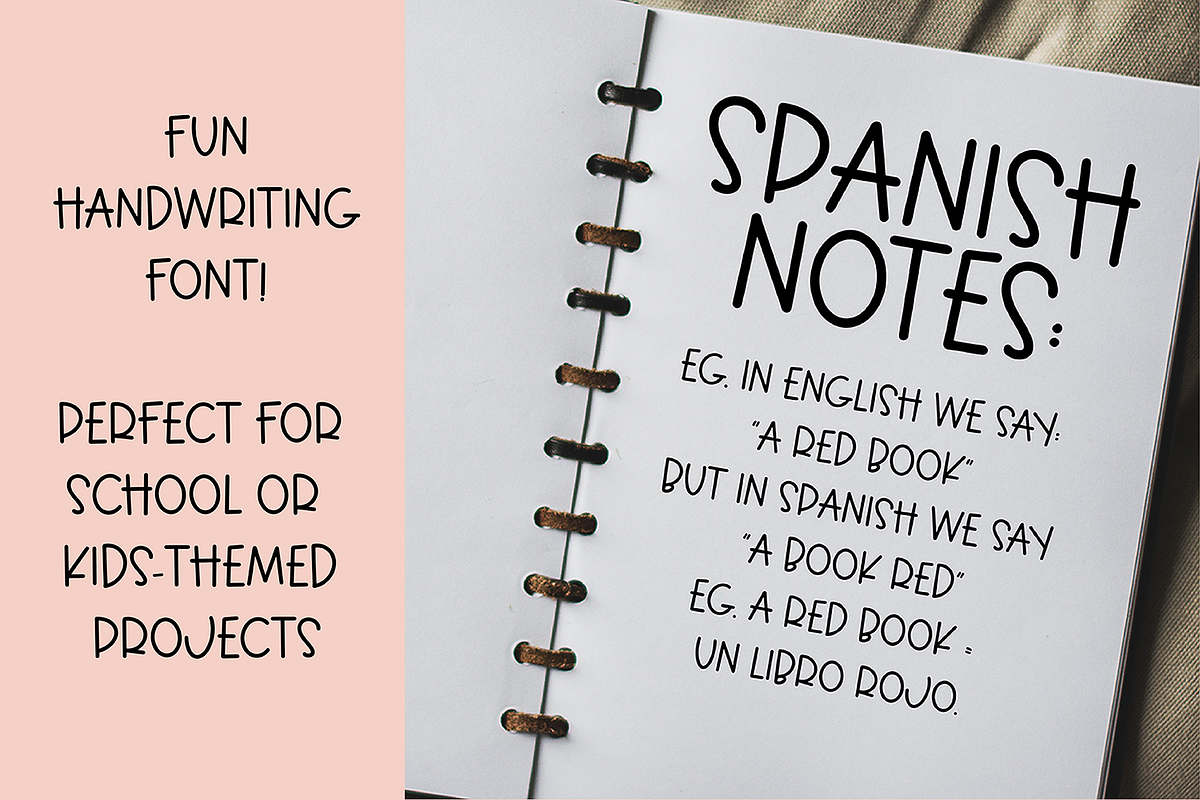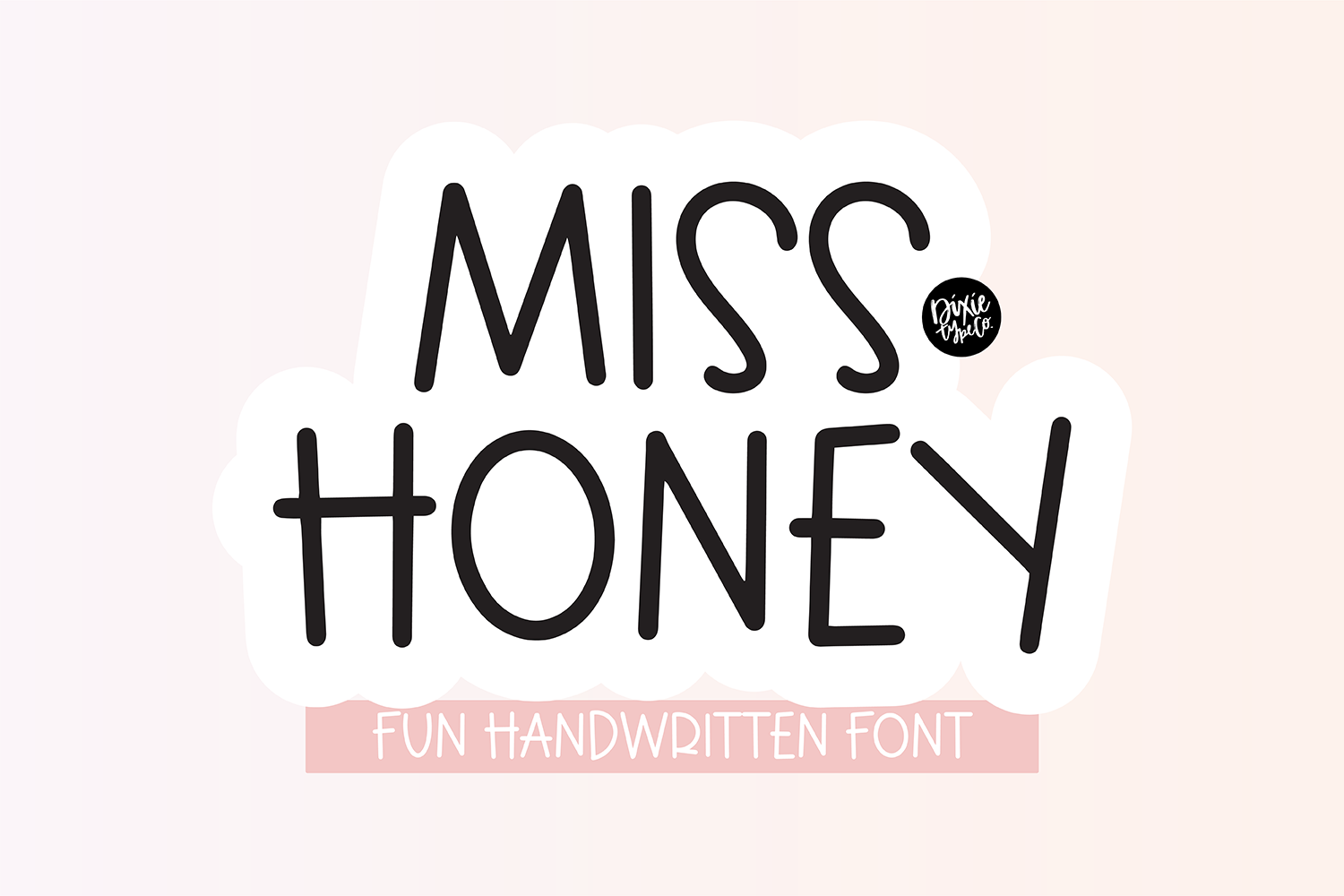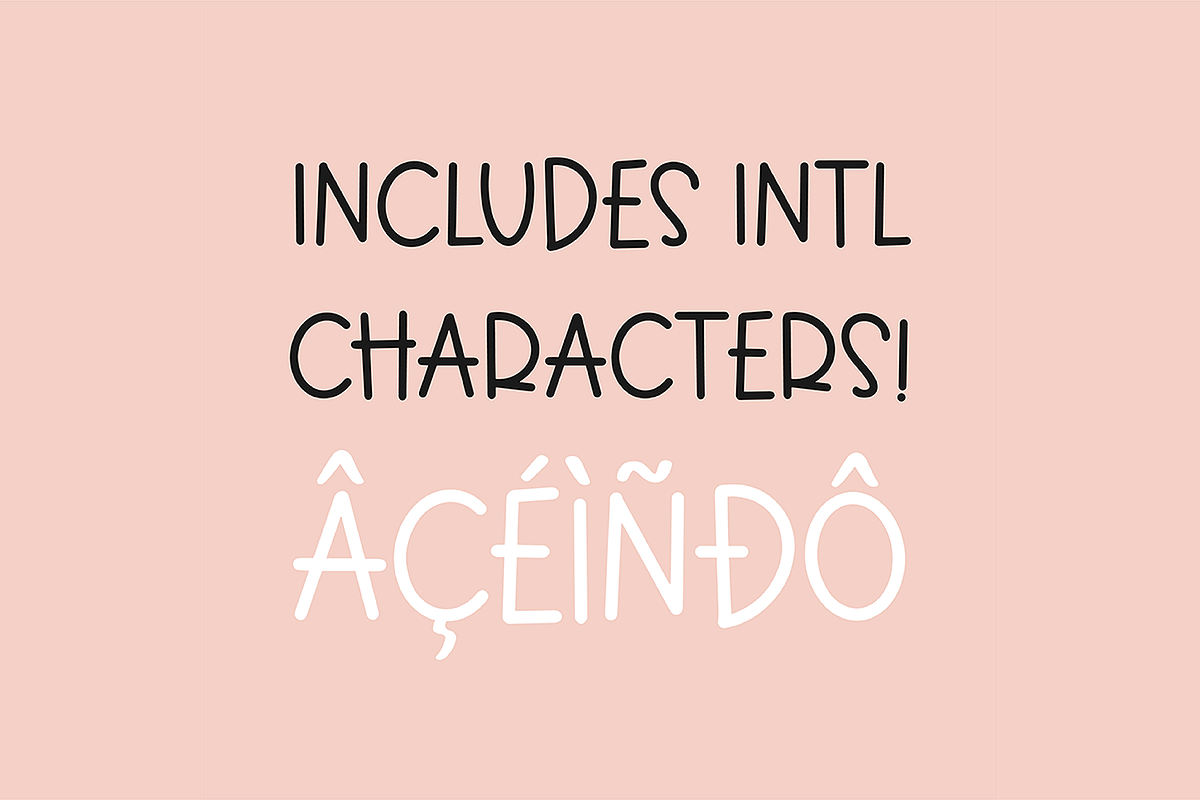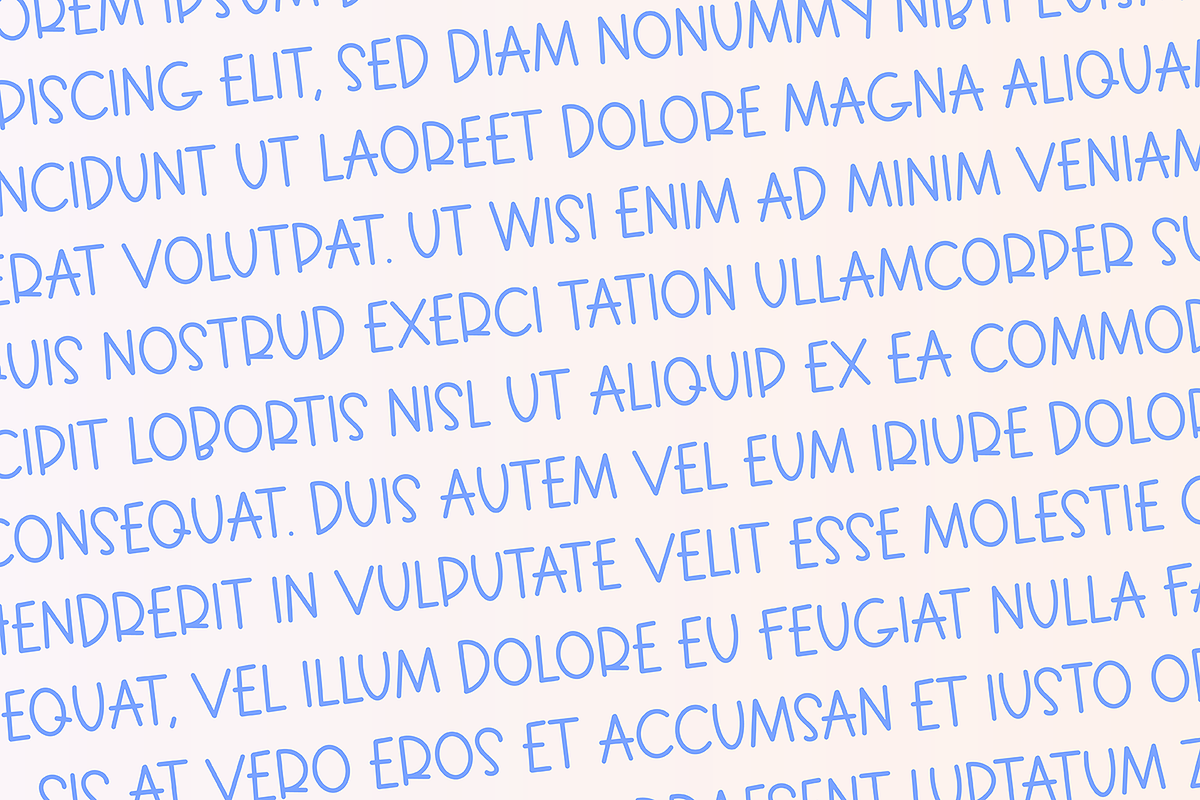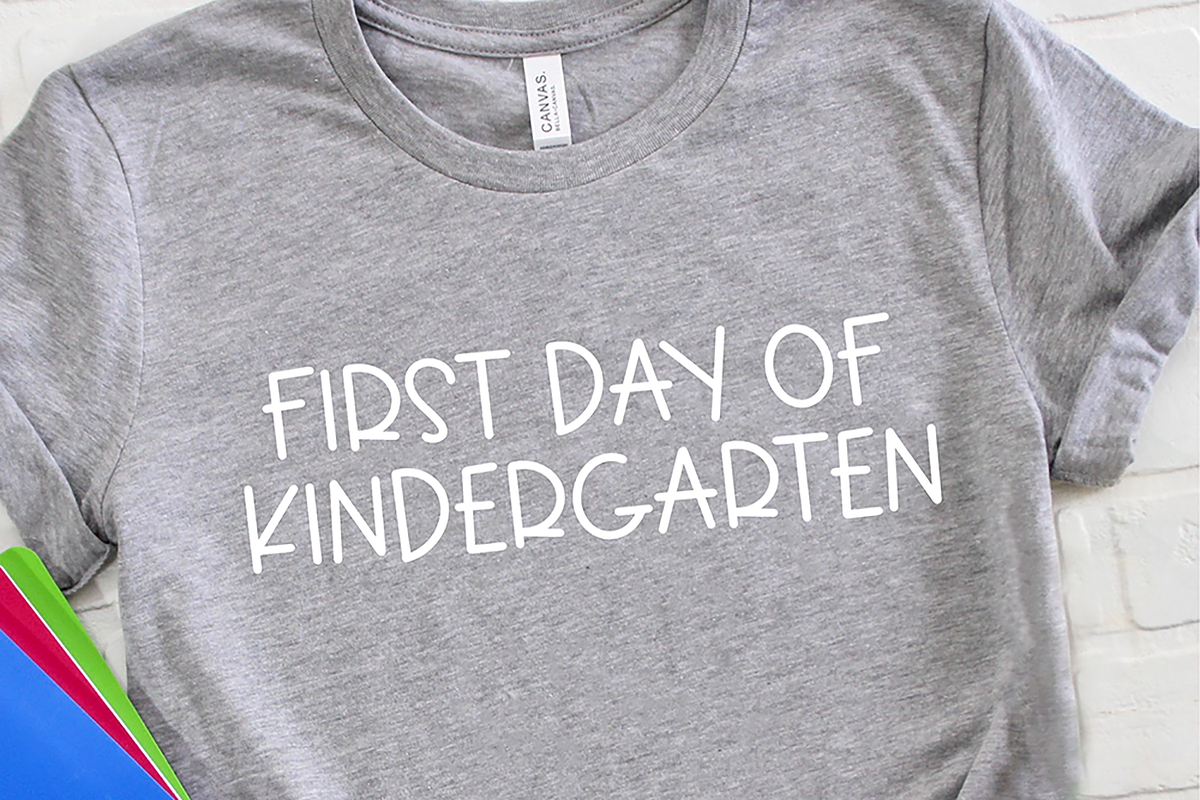
MISS HONEY Kids Handwriting Font
"Miss Honey" kids handwriting font.
Includes intl characters!
Miss Honey is a back to school handwriting font that is perfect for social media or crafty projects. Use if for branding, crafts for decor, invitations, and more! This font includes uppercase glyphs, international characters, and basic punctuation marks.